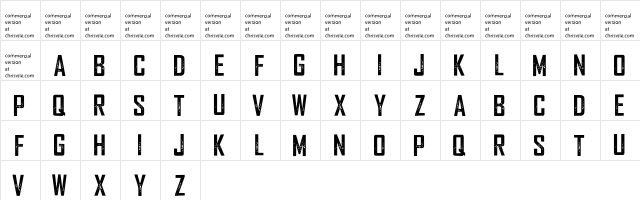
We are Depraved Regular
Design Context for We are Depraved Typeface
We are Depraved is a composed and adaptable typeface that performs quietly and consistently across a wide range of design contexts.